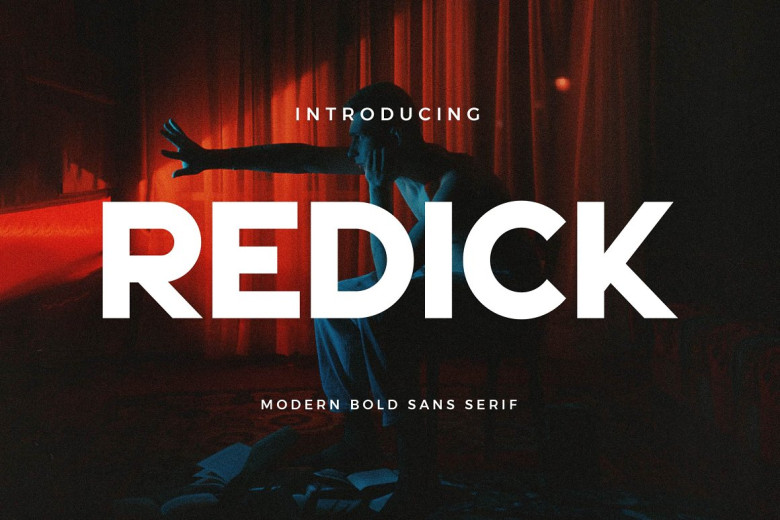
Redick Font
Redick Font Typeface is inspired by the iconic minimalist logo and makes an excellent base for designing templates, brochures and videos.
Redick Sans Serif Font